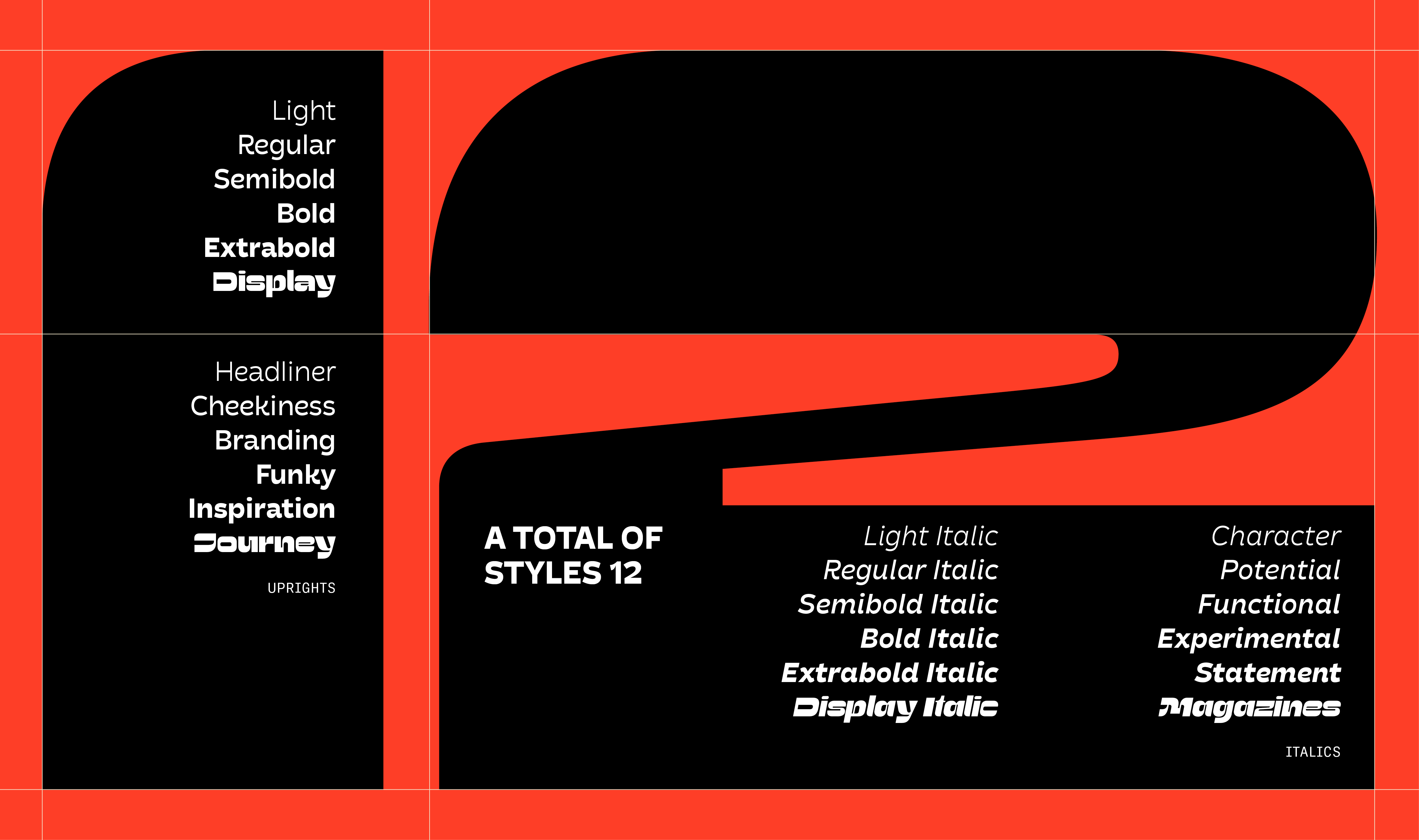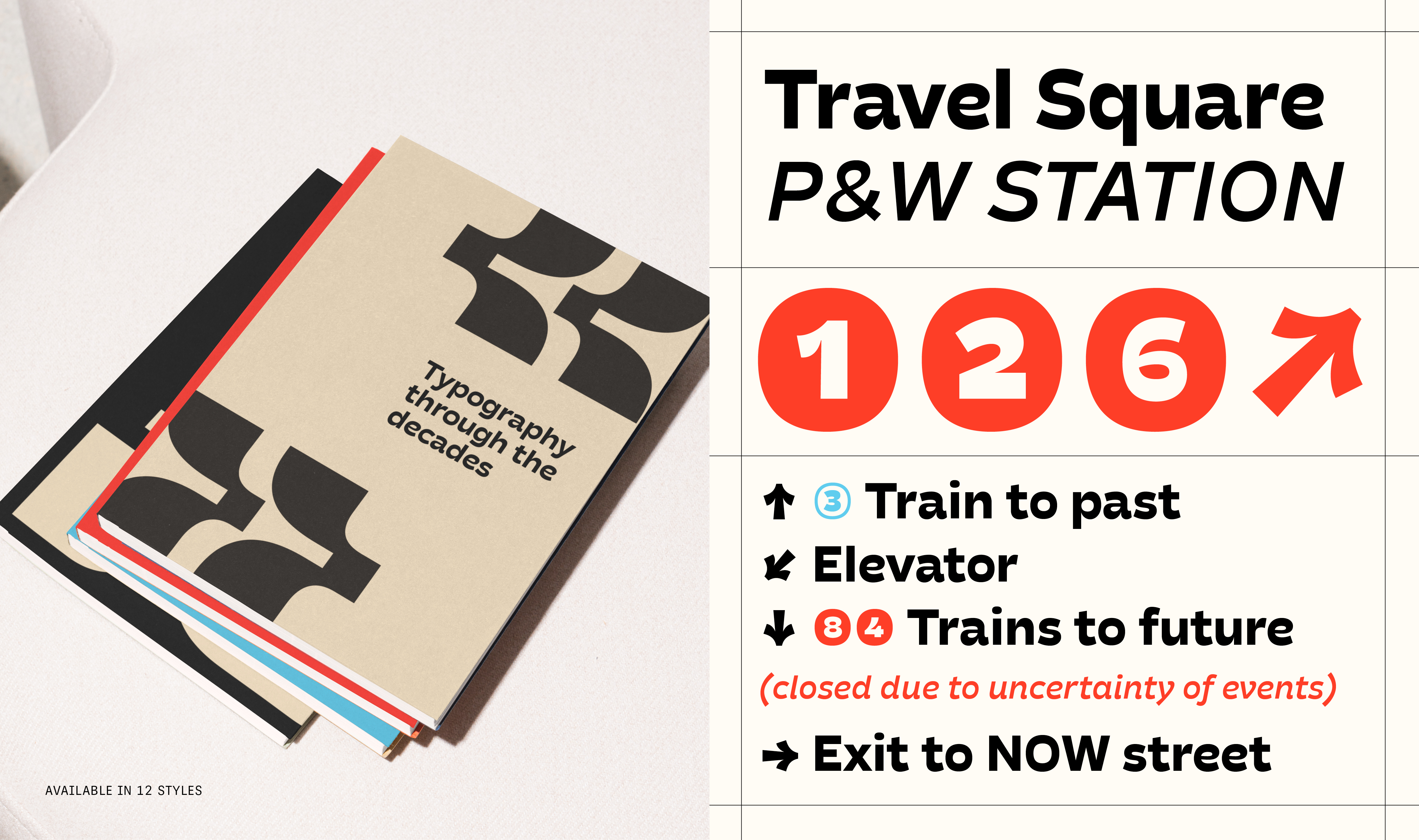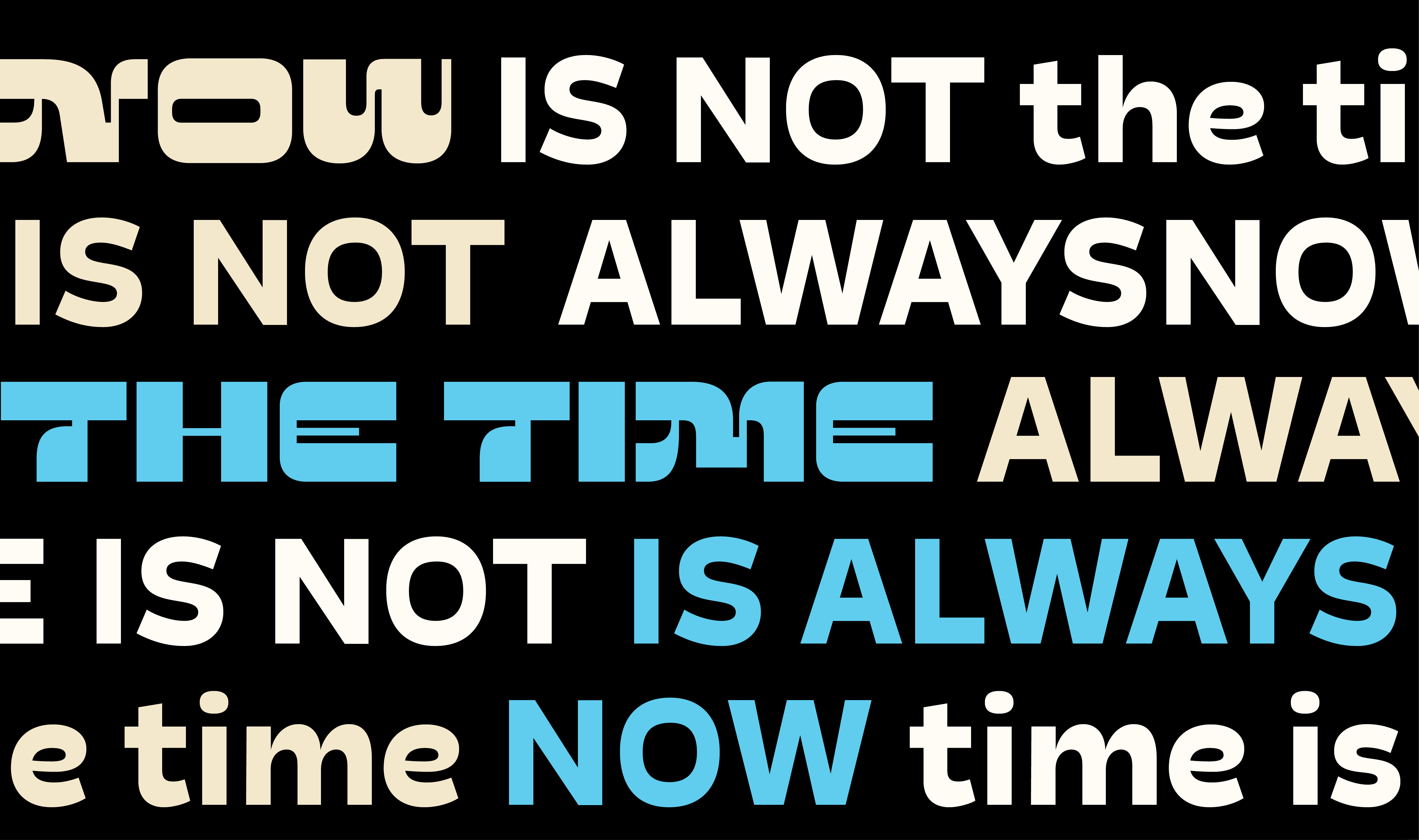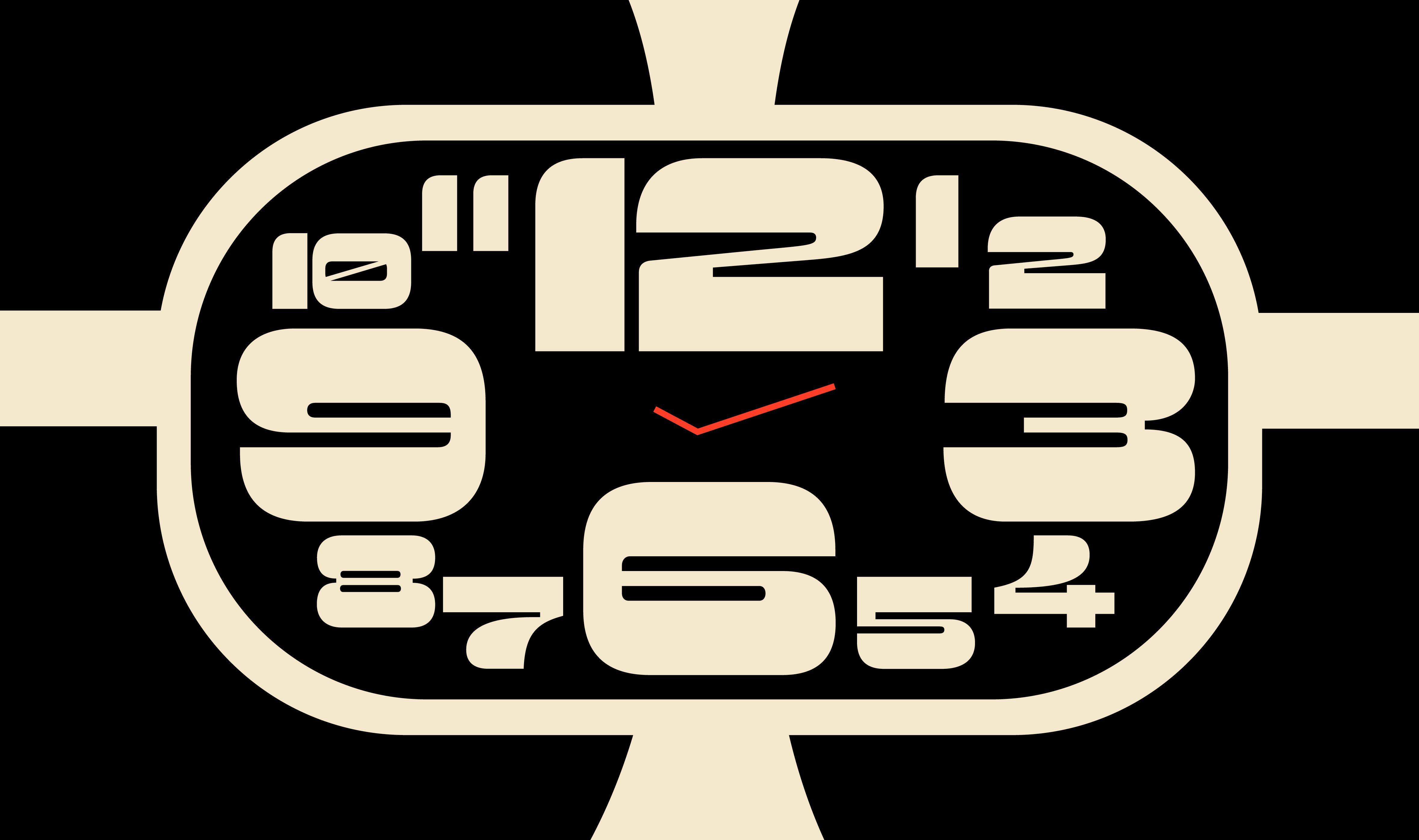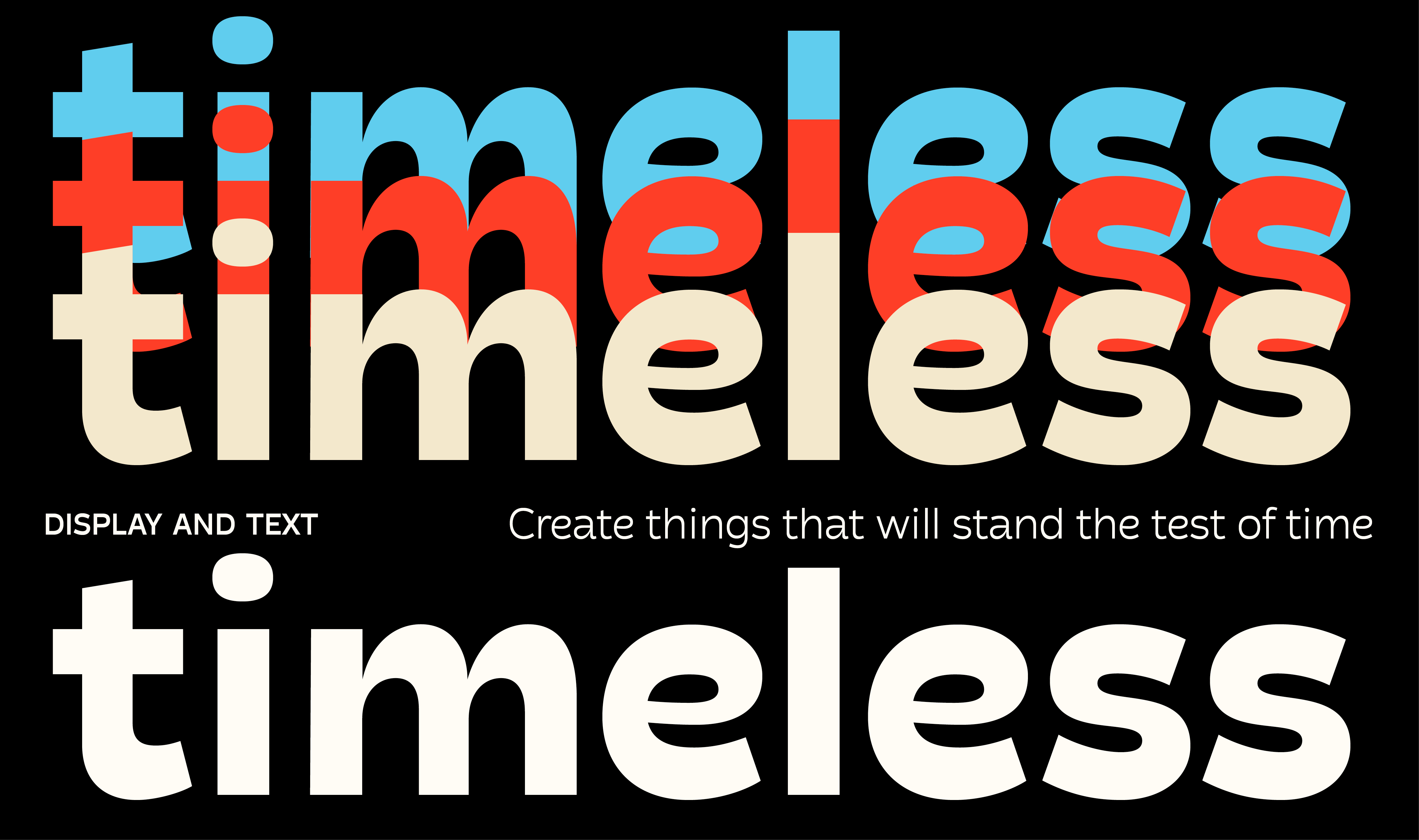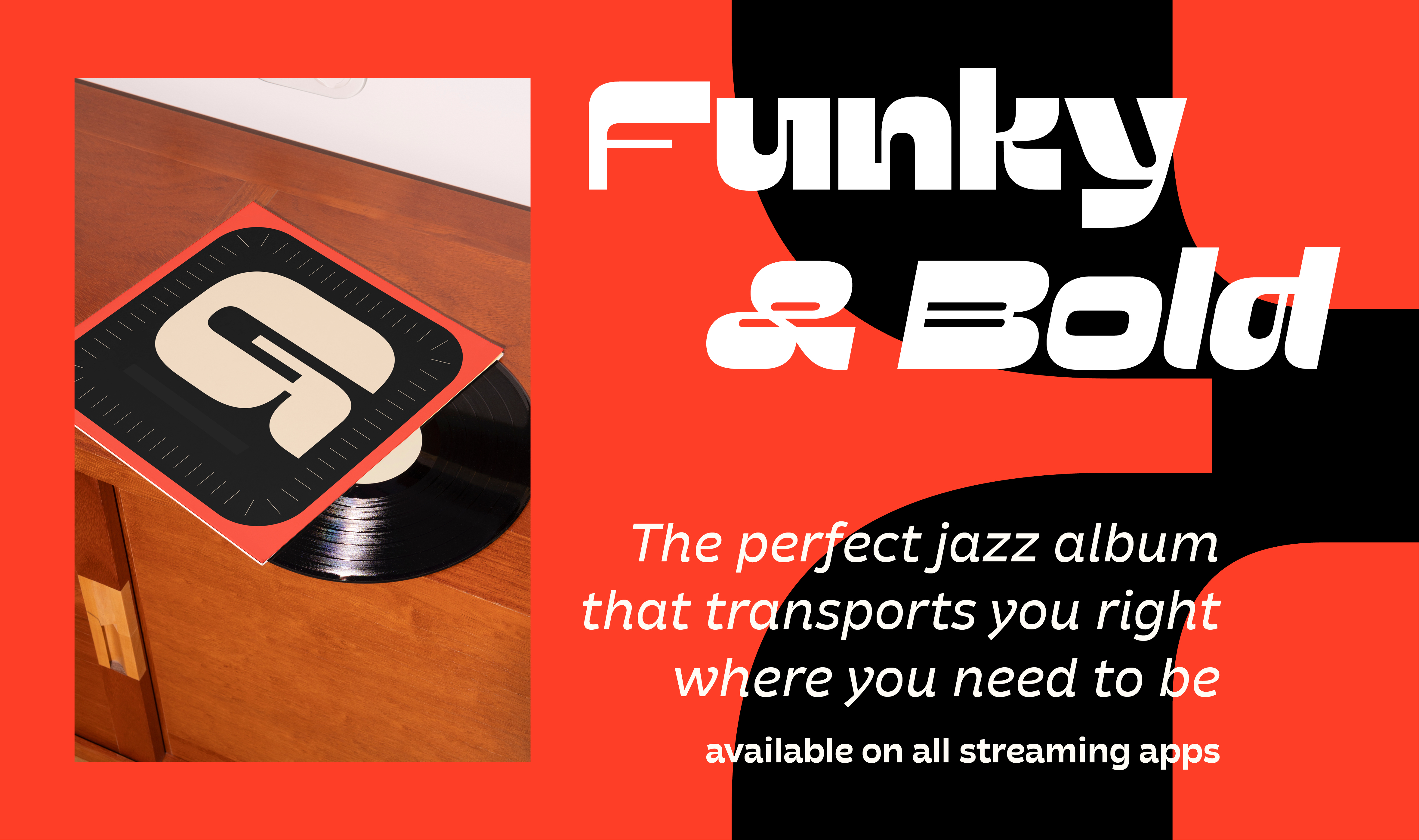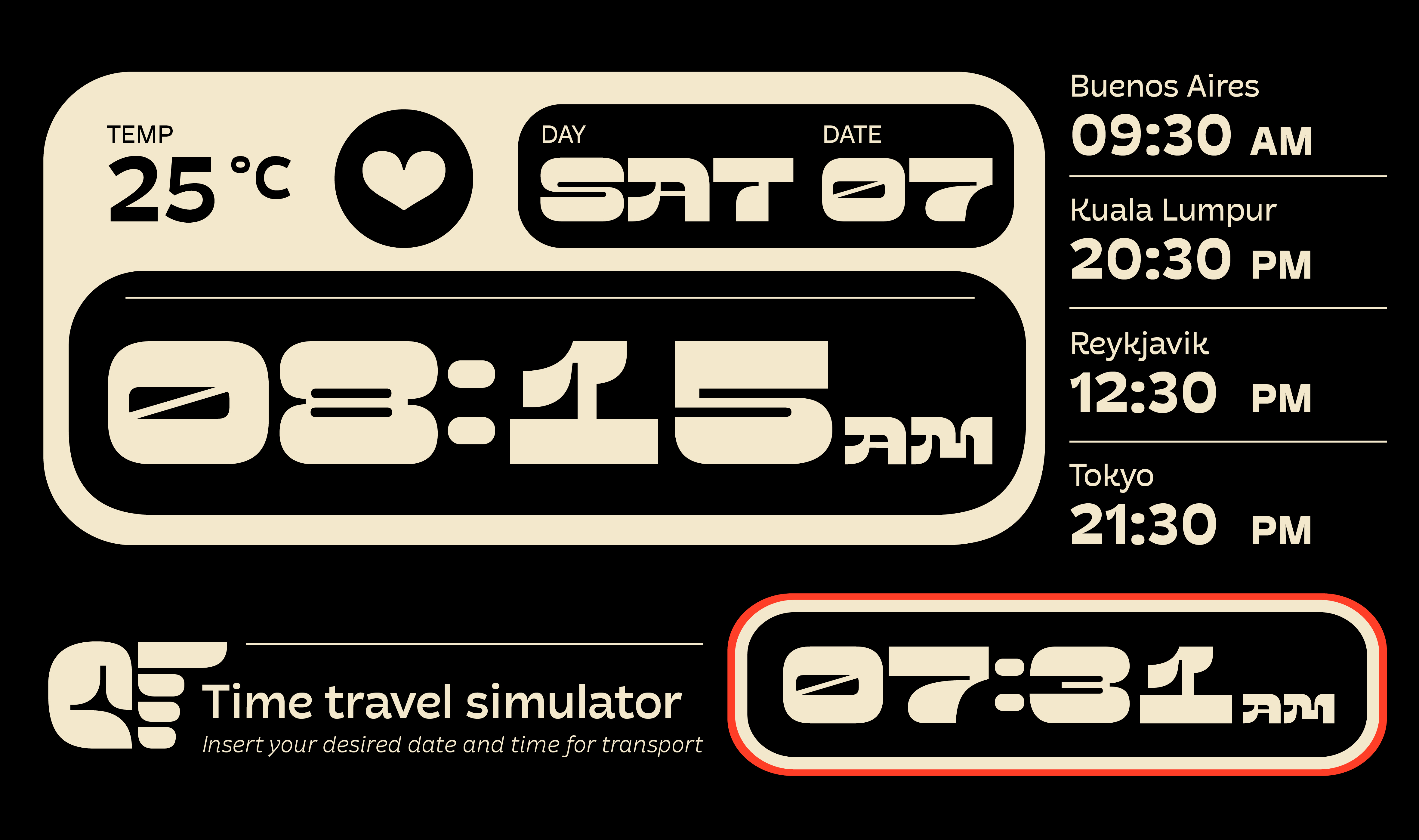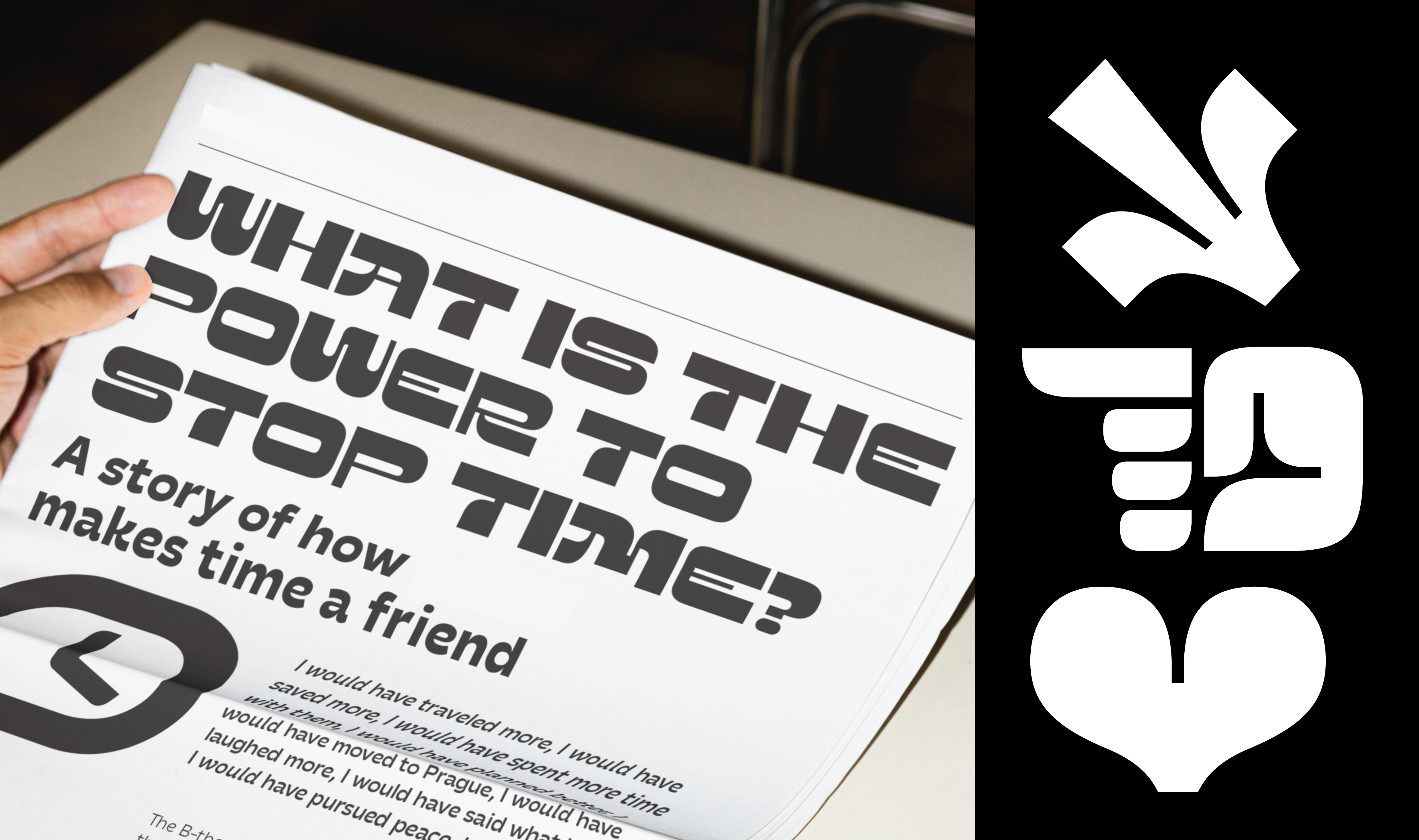
Poltik
Inspired by the retro aesthetics of Polish product design, this is a two-toned type family with a reverse contrast text and an eye-catching display headliner for a stylish, expressive presence. The ten text styles (five upright with matching italics) are sans-serif and designed for versatility across various uses.
Cheeky, funky, and reliable on any screen or page, this family covers the spectrum for both digital and print needs. It comes with two display styles, ten text styles, full Latin support covering over 200 languages, some playful ornaments like arrows, circled numerals, shapes, and manicules, and is also available as two variable fonts.
Warm and quirky in the lighter weights, its character becomes more expressive the bolder it gets, and the display styles bring in a full dose of retro charm.